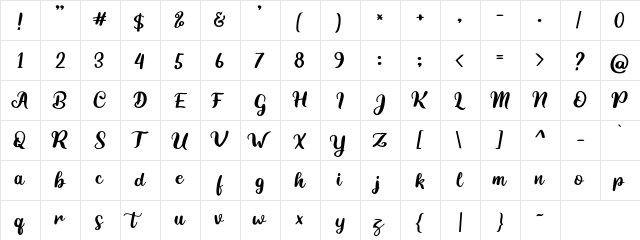
Highest Dafont Regular
| Designer | Jos Gandos |
Design Context for Highest Dafont Typeface
Highest Dafont is a composed and adaptable typeface that performs quietly and consistently across a wide range of design contexts.